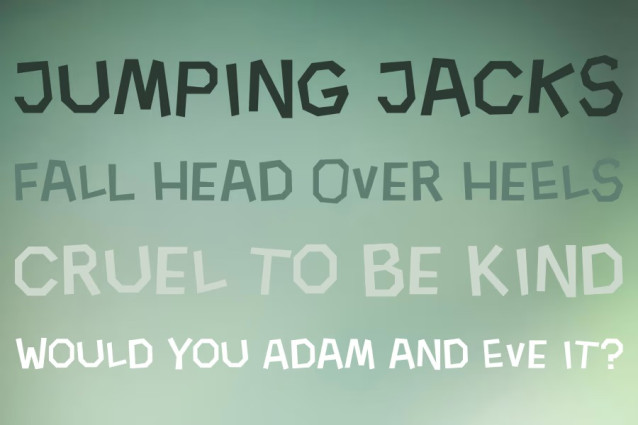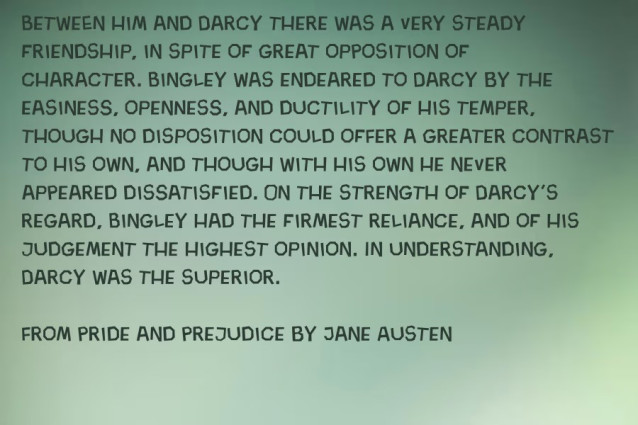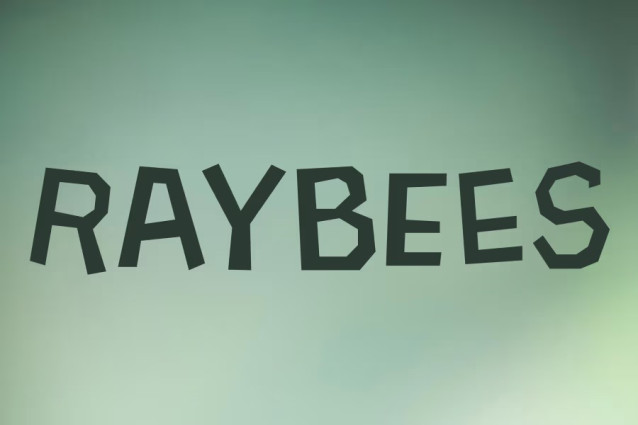
Raybees Font is a simple and modern display font suitable for quotes, logos, headings, titles, and many more. Use it on any of your creative projects, and your designs will become outstanding!
Raybees Font